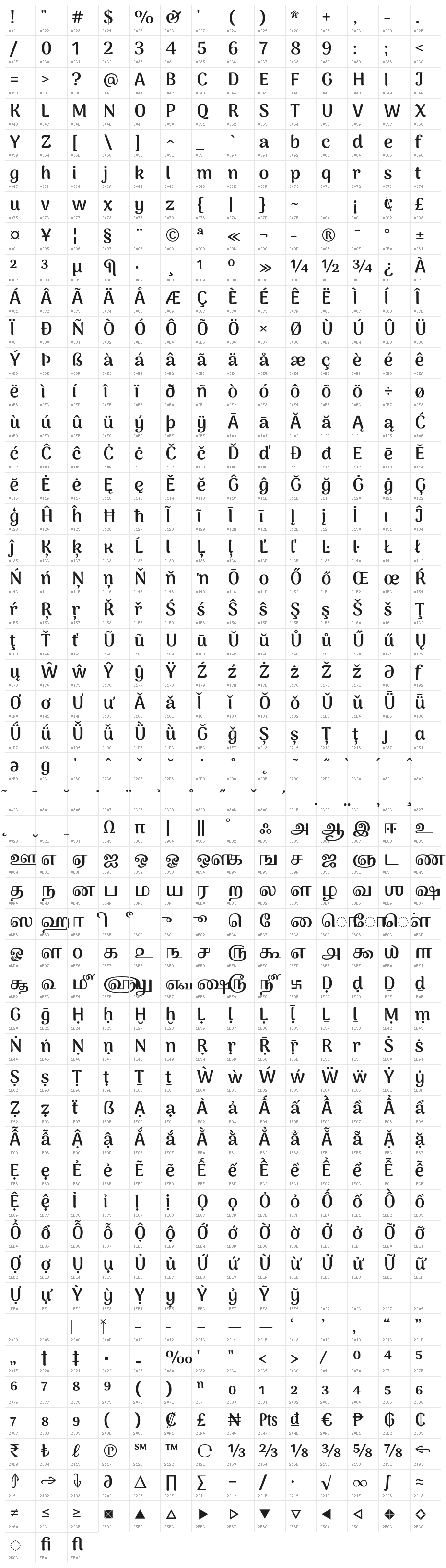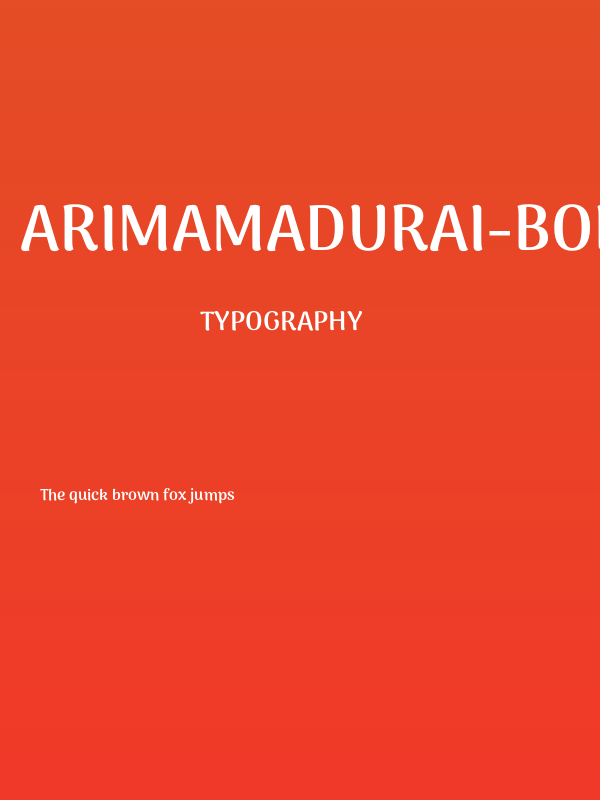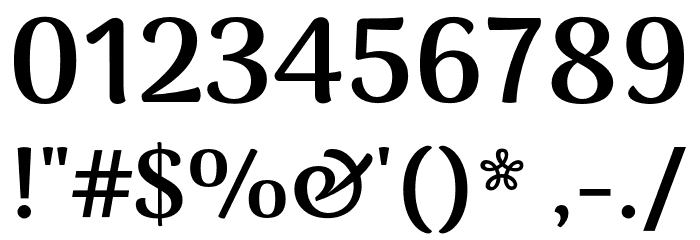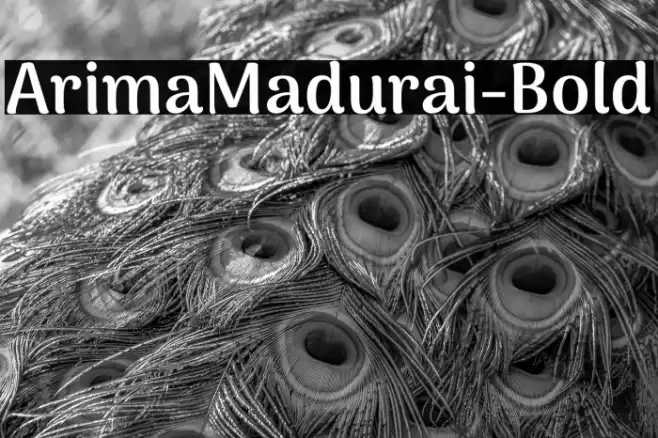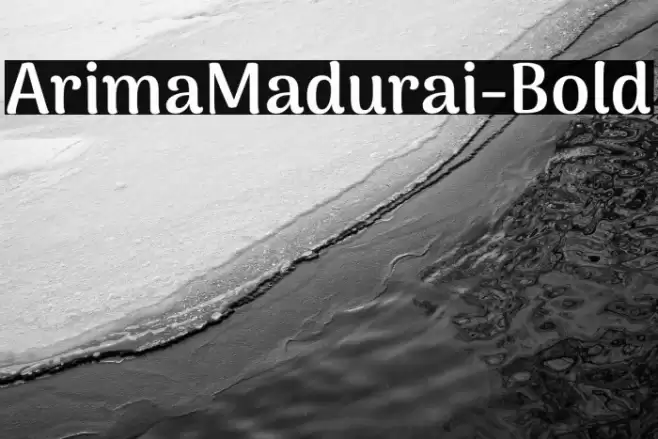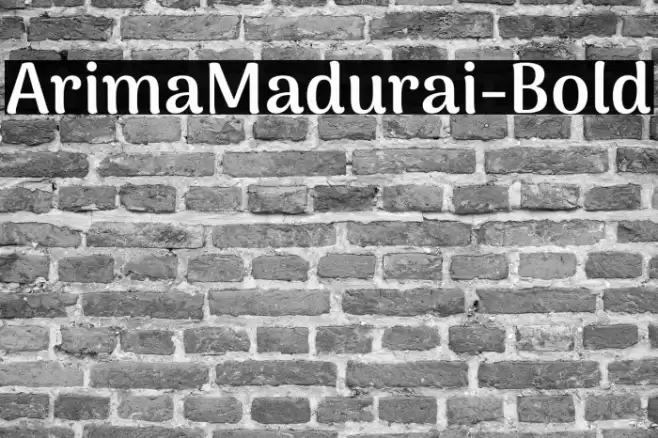
ArimaMadurai-Bold Font
✎ Sans Serif
ArimaMadurai-Bold Description
This font features a playful and rounded design, characterized by its smooth curves and friendly appearance. The letters have a consistent stroke width, giving it a uniform look. The uppercase letters are bold and prominent, while the lowercase letters maintain a balanced and approachable style. The numerals are clear and easy to read, making them suitable for various applications. Special characters are well-integrated, maintaining the overall aesthetic of the font. This typeface is versatile, offering a modern yet approachable feel that can be used in a variety of design projects.
| Use Case | Headlines, Logos, Branding |
| Proposed Projects | Ideal for children's books, playful branding, casual invitations, and friendly website headers. |